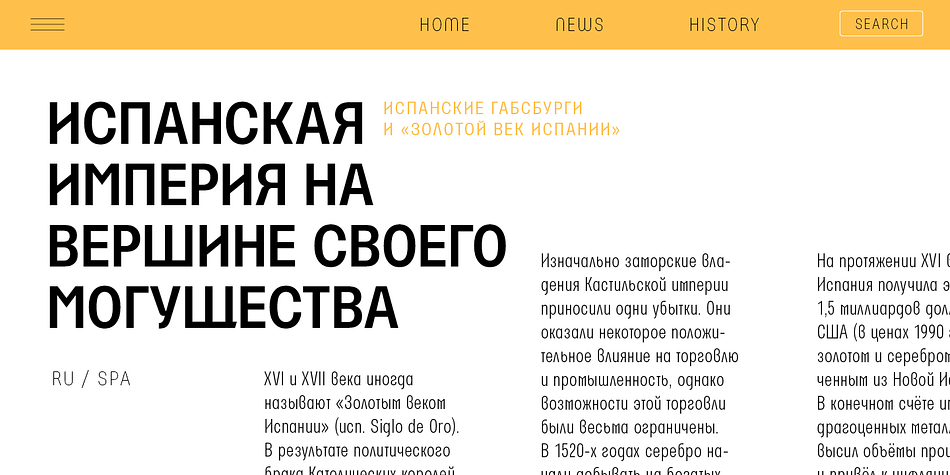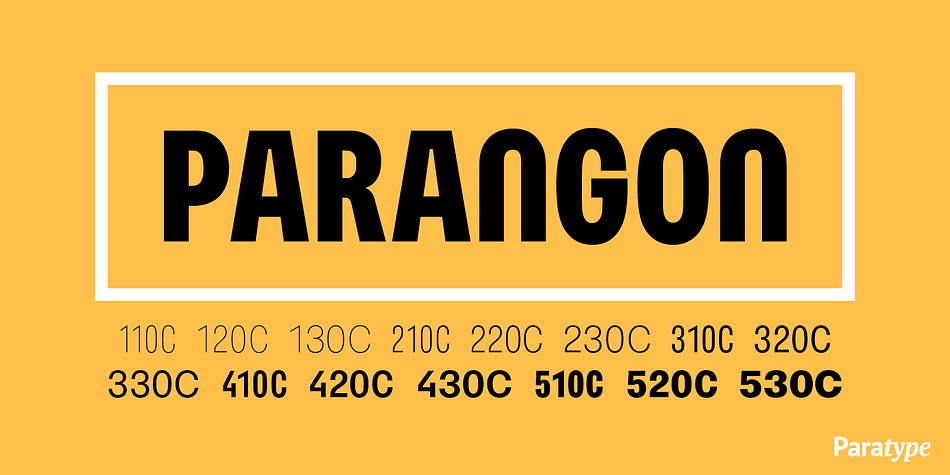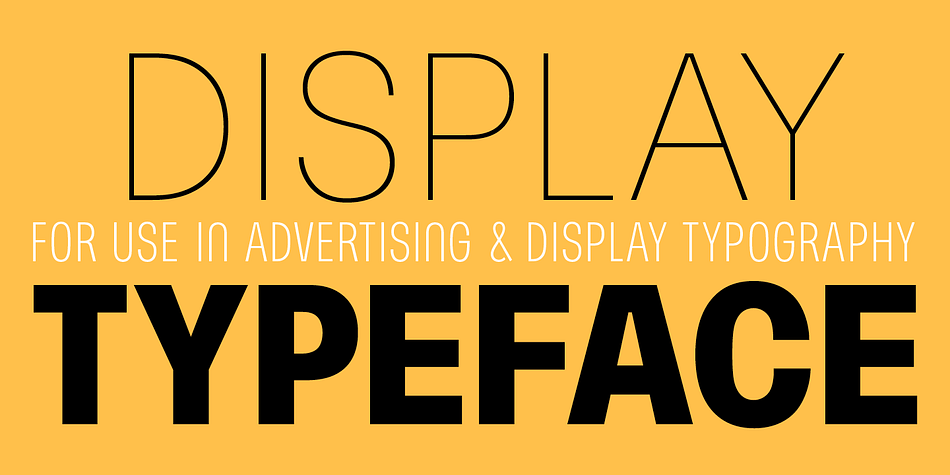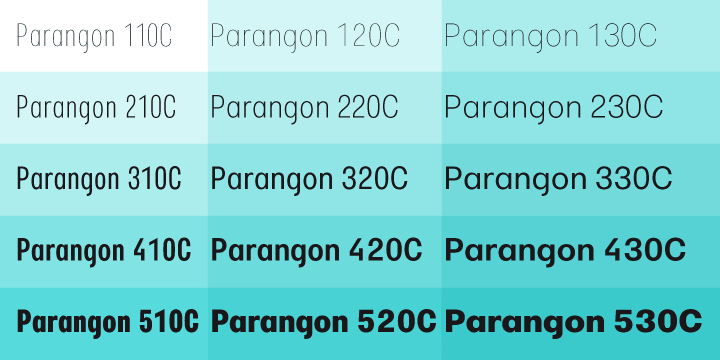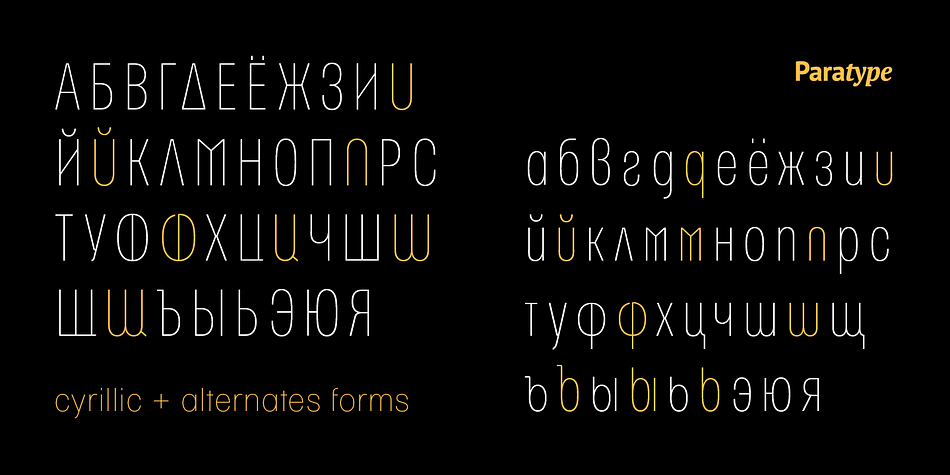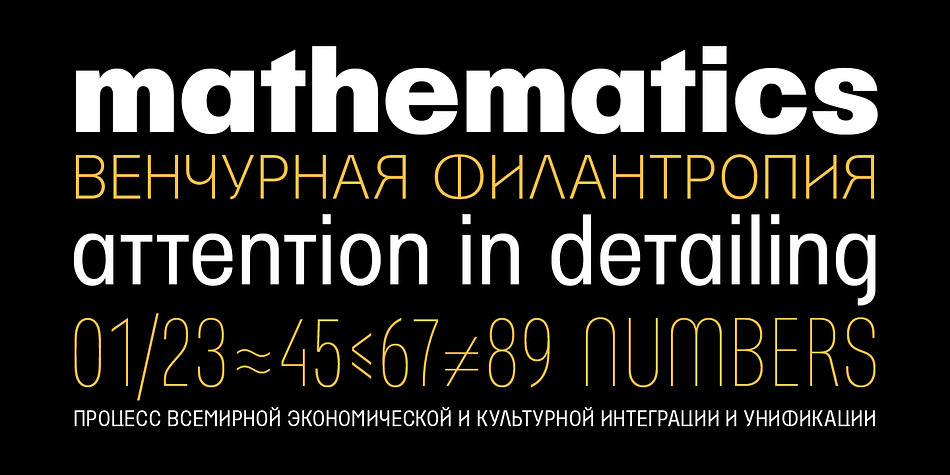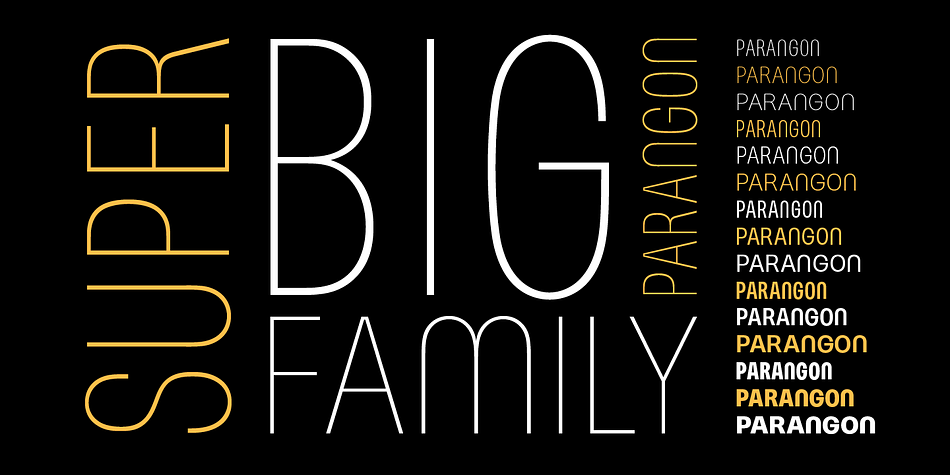
Designed by Anatoliy Kudryavtsev, Parangon is a sans serif font family. This typeface has fifteen styles and was published by ParaType.
PT Parangon™ was designed in 1986-2002 by Anatoly Kudryavtsev and licensed by ParaType. This type family belonges to Neogrotesque subclass of closed Sans Serif. Letterforms of lower case is based on the tradition of 1710 Civil type and some modern Italic types. The family has a lot of weights and styles including Extra Condensed, Regular, Extra Light, Light, Bold, Extra Bold. For advertising and display matter. Also it can be used for texts in advertising magazines.